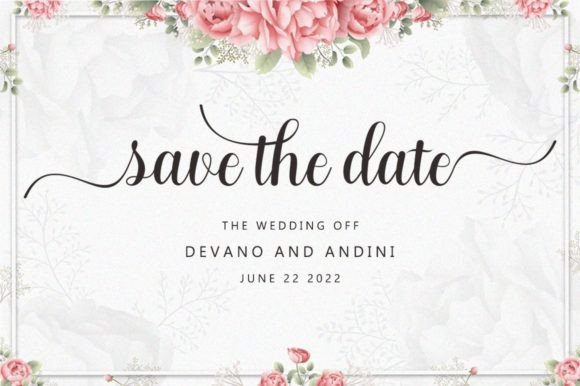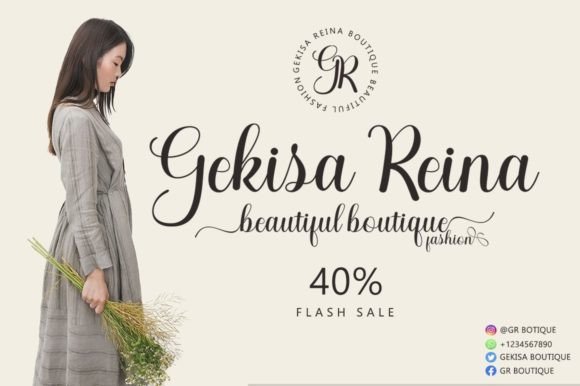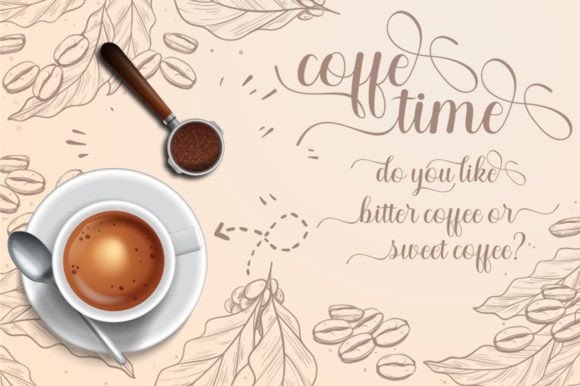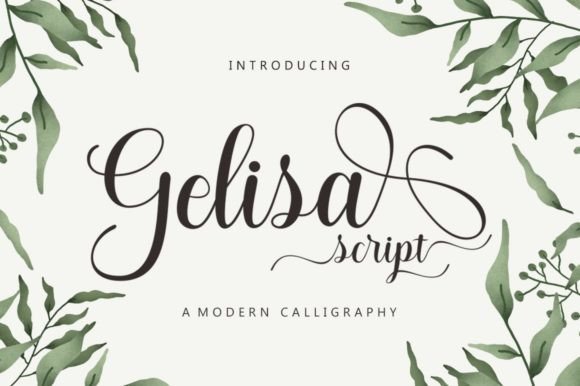
Introduction to Gelisa Font
Gelisa is a dazzling and detailed script font.
Add this romantic and lovely-looking font to each of your love letters, wedding invitations, or favorite design ideas, and you will be astounded by the outcome .
Why Choose Gelisa Font?
Gelisa Font offers exceptional quality and versatility, making it a valuable addition to your design toolkit. Whether you’re creating for personal projects or commercial use, Gelisa Font delivers professional results.